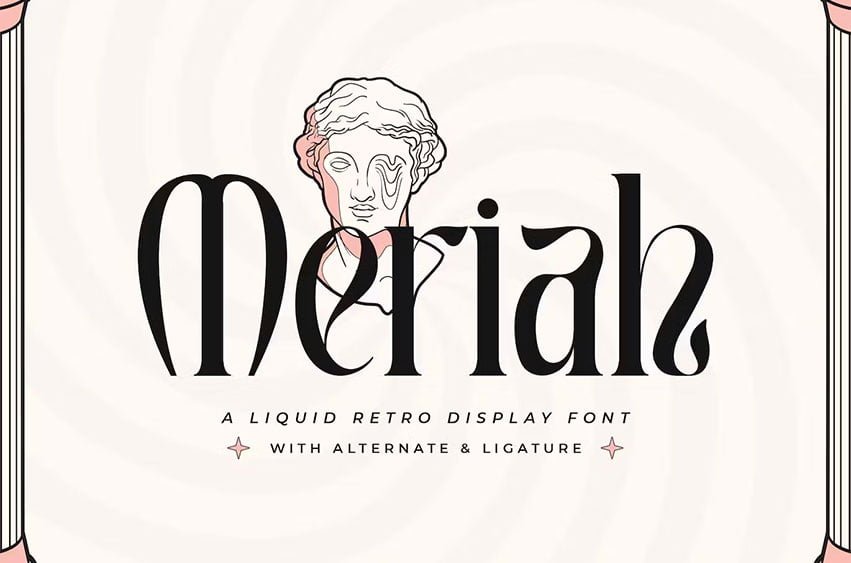
Meriah Font take a trip back in time with “Meriah” – a liquid retro display font that channels the vibrant spirit of the past.
With its fluid and dynamic letterforms, “Meriah” captures the essence of retro design, transporting you to an era of bold colors and playful curves. Each letter drips with nostalgia, making it perfect for creating eye-catching headlines, posters, album covers, and more.
Embrace the retro allure of “Meriah” as it adds a touch of vintage flair to your projects. Whether you’re designing for themed events, branding, or creative displays, this font will infuse your designs with a sense of fun and nostalgia.